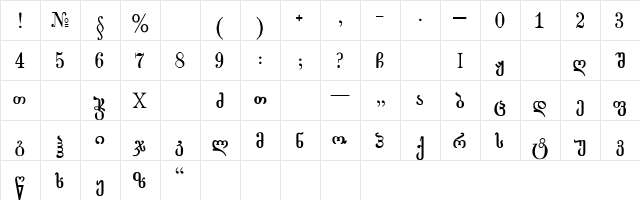
Targamos Regular
Design Context for Targamos Typeface
Targamos takes a measured approach to typography — its balanced proportions and neutral character make it a reliable workhorse for both digital and print work.